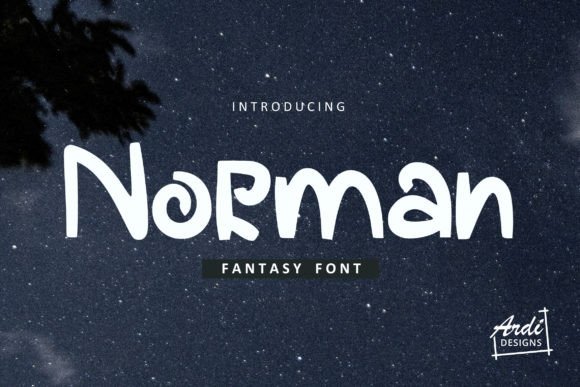
Introducing Norman Font, the ultimate font for capturing the magic and whimsy of your designs. This alluring display font, lovingly crafted by ArdiDesigns, weaves an enchanting tapestry with its captivating curves and enchanting style. Norman is not just a font; it's a gateway to a world where creativity blooms and imagination takes flight.
Immerse yourself in the captivating allure of Norman Font, where your words dance with elegance and your designs shimmer with an ethereal glow. Its modern yet whimsical nature gracefully blends the charm of the past with the vibrancy of the present, crafting a timeless masterpiece that transcends fleeting trends.
Whether you're an artist yearning to infuse your canvases with a touch of enchantment, a designer seeking to weave magic into your creations, or simply a dreamer longing to capture the essence of your imagination, Norman Font beckons you to embrace its captivating embrace.
Unleash the boundless possibilities that Norman Font holds, and elevate your designs to unimaginable heights. Let its enchanting aura captivate your audience, leaving them spellbound by the magic that unfolds before their eyes. Norman Font is not just a font; it's a catalyst for creativity, a whisper of enchantment, and a timeless treasure that will forever adorn your designs with an enchanting shimmer.